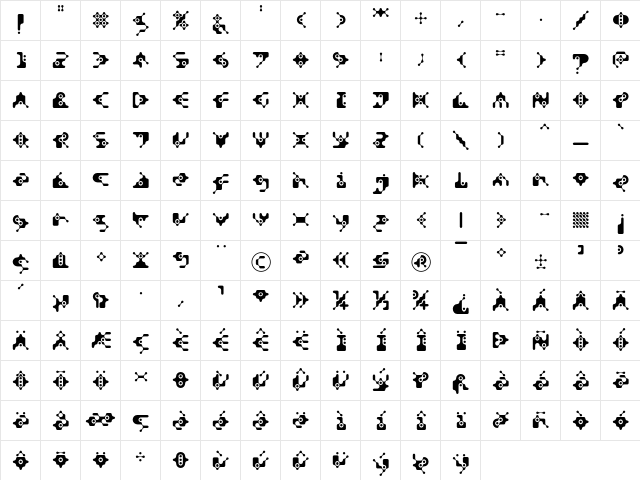
DigitalWaste Regular
Design Context for DigitalWaste Typeface
DigitalWaste channels digital-age aesthetics through its sharp, structured letterforms — ideal for brands that want to signal innovation.